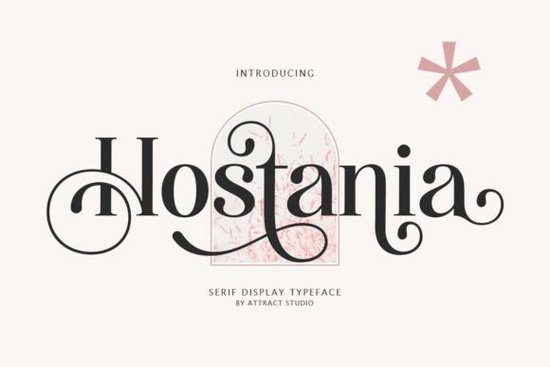
If you've been searching for a serif typeface that feels both timeless and refined, the Hostania Font is worth a close look. It's a nostalgic serif design that works beautifully at large display sizes and still holds up well in smaller body text. Whether you're designing a logo, working on wedding invitations, or putting together product packaging, this typeface brings an understated elegance that's hard to fake with other fonts.
What Makes Hostania Font Different from Other Serif Typefaces?
Plenty of serif fonts claim to be "classic," but Hostania actually delivers on that promise. Its letterforms have a warm, slightly vintage quality think old book covers and refined editorial layouts without feeling outdated. The proportions are balanced, the spacing is clean, and the overall tone is sophisticated without being stiff.
What really sets it apart is versatility. Some serif fonts only look good as headlines. Others only work in body copy. Hostania handles both roles well, which means you can use it across an entire project without juggling multiple typefaces.
Who Should Use This Font?
This font is a solid choice for a wide range of creative projects. Here's who will get the most out of it:
- Logo designers The elegant serif structure gives branding work a polished, premium feel.
- Print-on-demand sellers Great for quotes, typography-based designs, and merchandise that needs a touch of class.
- Wedding and event stationery designers The nostalgic tone fits invitations, menus, and programs perfectly.
- Small business owners Use it for packaging, labels, business cards, and social media graphics to create a consistent, professional look.
- Crafters and hobbyists Works well in Cricut and Silhouette projects, printable wall art, and handmade greeting cards.
Where Does Hostania Font Look Best?
Because of its clean structure and readable letterforms, you can use Hostania in a variety of design contexts:
- Titles and headings Its display quality shines at larger sizes, making it ideal for hero sections, posters, and signage.
- Logos and wordmarks The refined serif style communicates trust and sophistication.
- Body text Unlike many decorative serifs, Hostania remains legible at smaller sizes, so it works in longer paragraphs and editorial layouts.
- Social media graphics Clean enough to read on screens, stylish enough to stand out in a feed.
How Does It Pair with Other Fonts?
One of the smartest ways to use Hostania is alongside a clean sans-serif. Pair it with a simple geometric or humanist sans-serif for contrast use Hostania for headlines and the sans-serif for supporting text. This creates a visual hierarchy that feels intentional and professional.
If you're working on a project that calls for a more dramatic look, you could also combine it with a bold script or a complementary serif. For example, if you're building a type system for a brand, you might explore something like a more decorative serif option for accent pieces while keeping Hostania as your primary workhorse.
What File Formats and Features Does It Include?
Hostania comes in standard font formats that work across major design software, including Adobe Illustrator, Photoshop, Canva, and Affinity Designer. It supports both uppercase and lowercase letters, giving you flexibility for different typographic styles.
Quick Checklist Before You Start Designing
- Check the license Make sure your Creative Fabrica subscription covers commercial use for your specific project type.
- Test it at multiple sizes Preview Hostania at both headline and body text sizes to see how it performs in your layout.
- Pair it intentionally Choose a complementary sans-serif or script font to create contrast and visual interest.
- Watch your spacing Serif fonts often benefit from slightly increased letter-spacing in all-caps settings. Adjust tracking as needed.
If you're looking for a dependable serif typeface that handles both display and text roles without feeling generic, Hostania is well worth adding to your font library. It won't try to be the loudest font in your toolkit it'll just make everything look a little more polished.